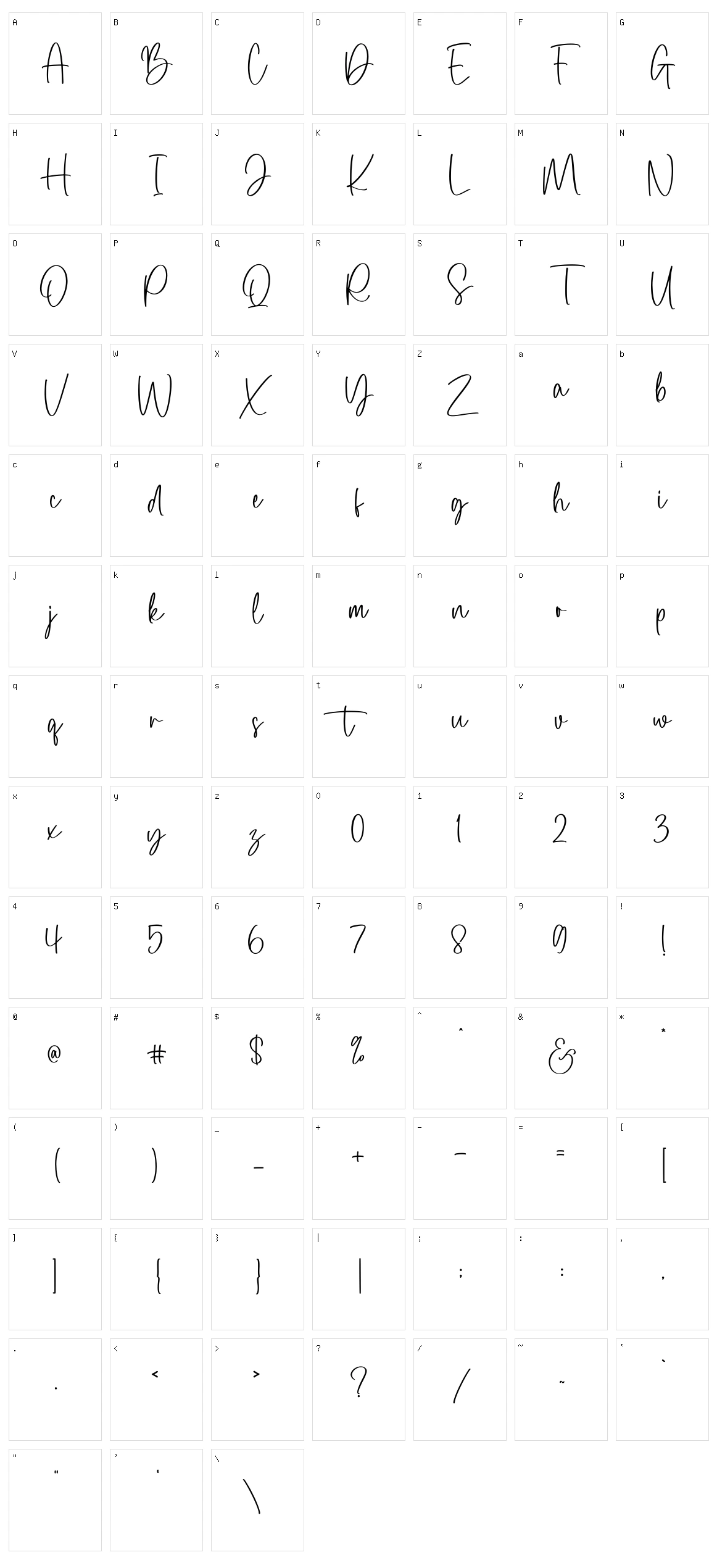
The free font Dream Collection is carefully designed by Revo Farisky, showcasing a thoughtful balance of creativity and usability and falls under the Script font style. When you download the ZIP file, it contains only 886.18 KB of font files, making it lightweight and quick to download. Please review the license details below to understand permitted usage and distribution rights. If license information is not available, we recommend using this font for personal projects only or contacting the author directly for commercial usage permissions.